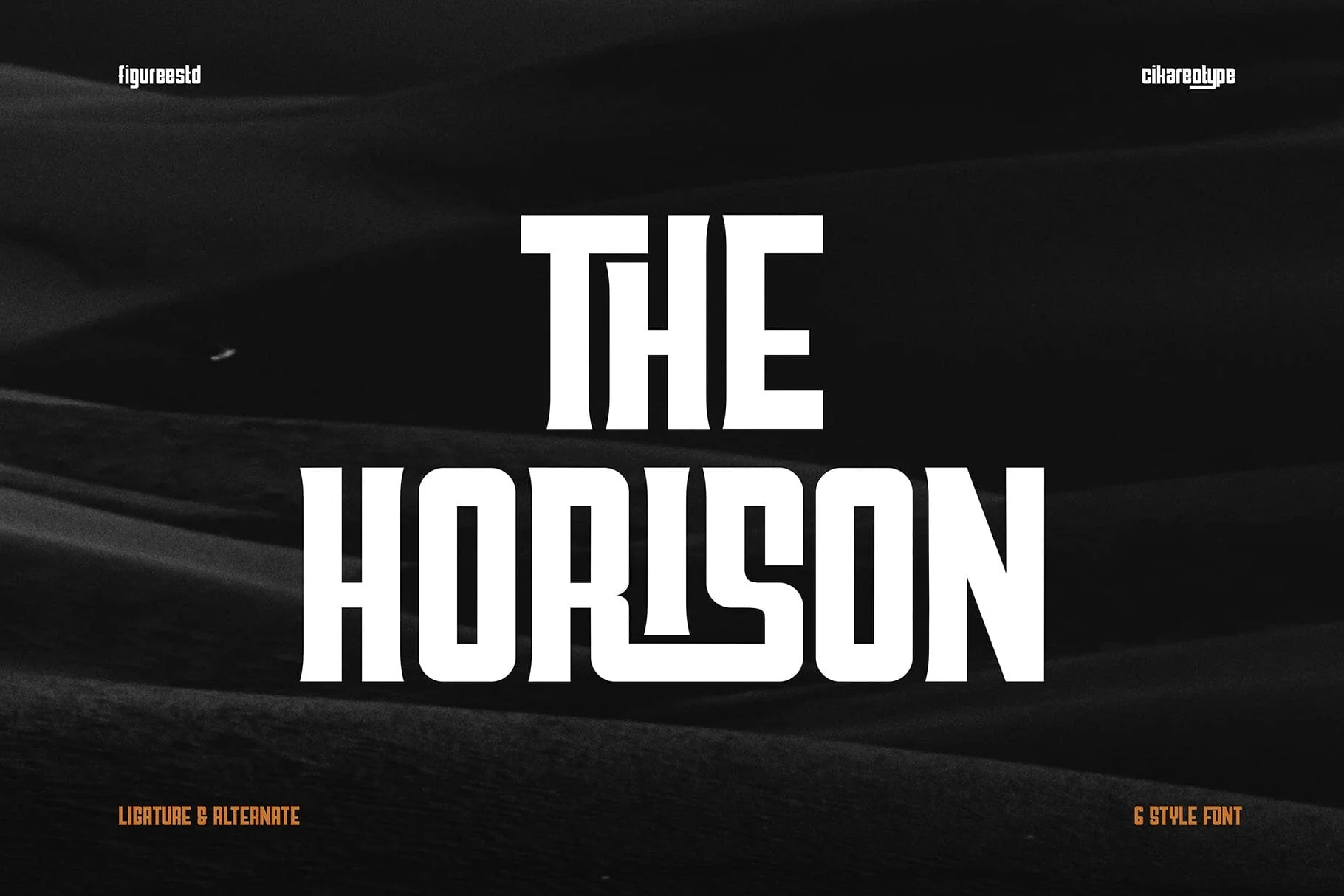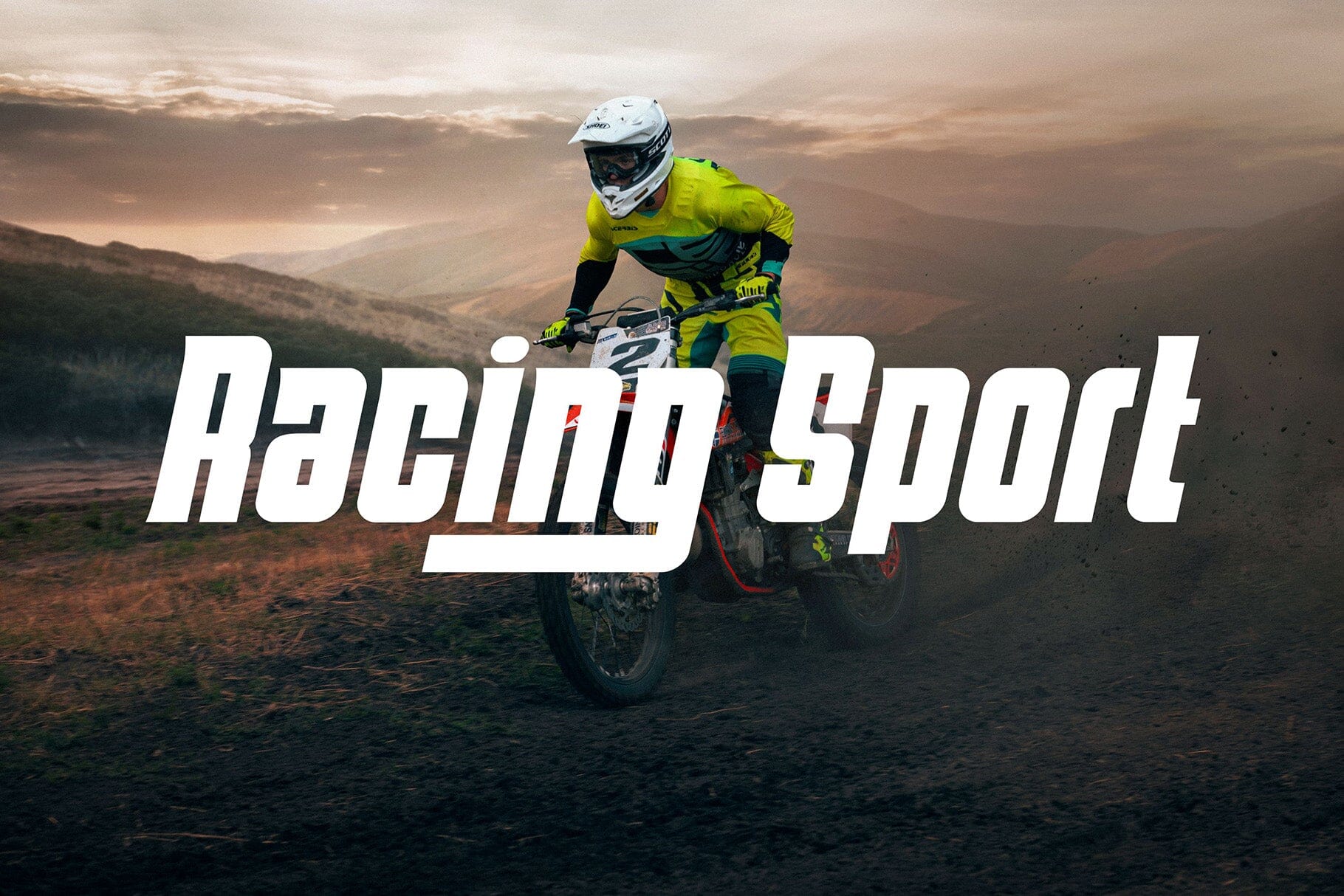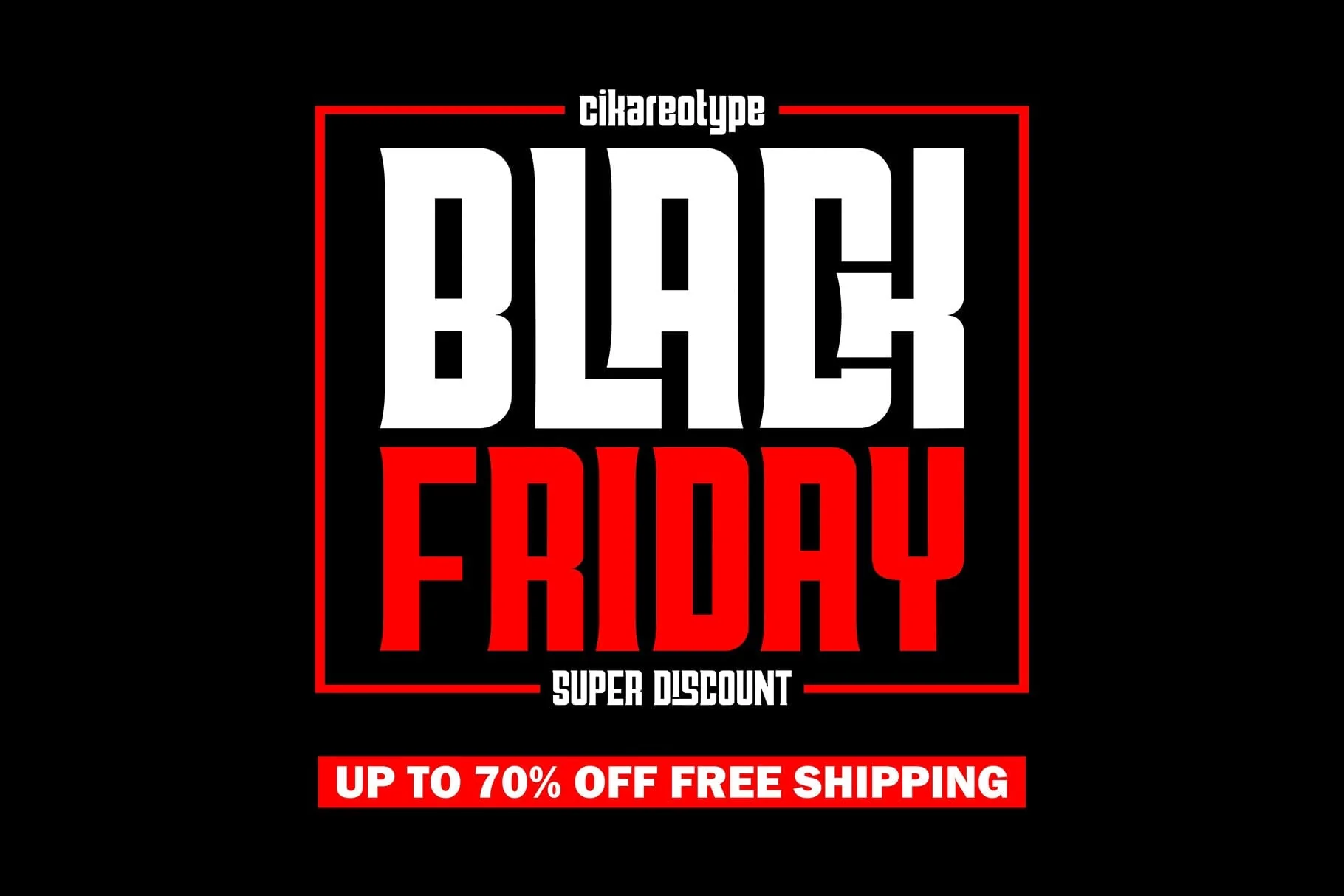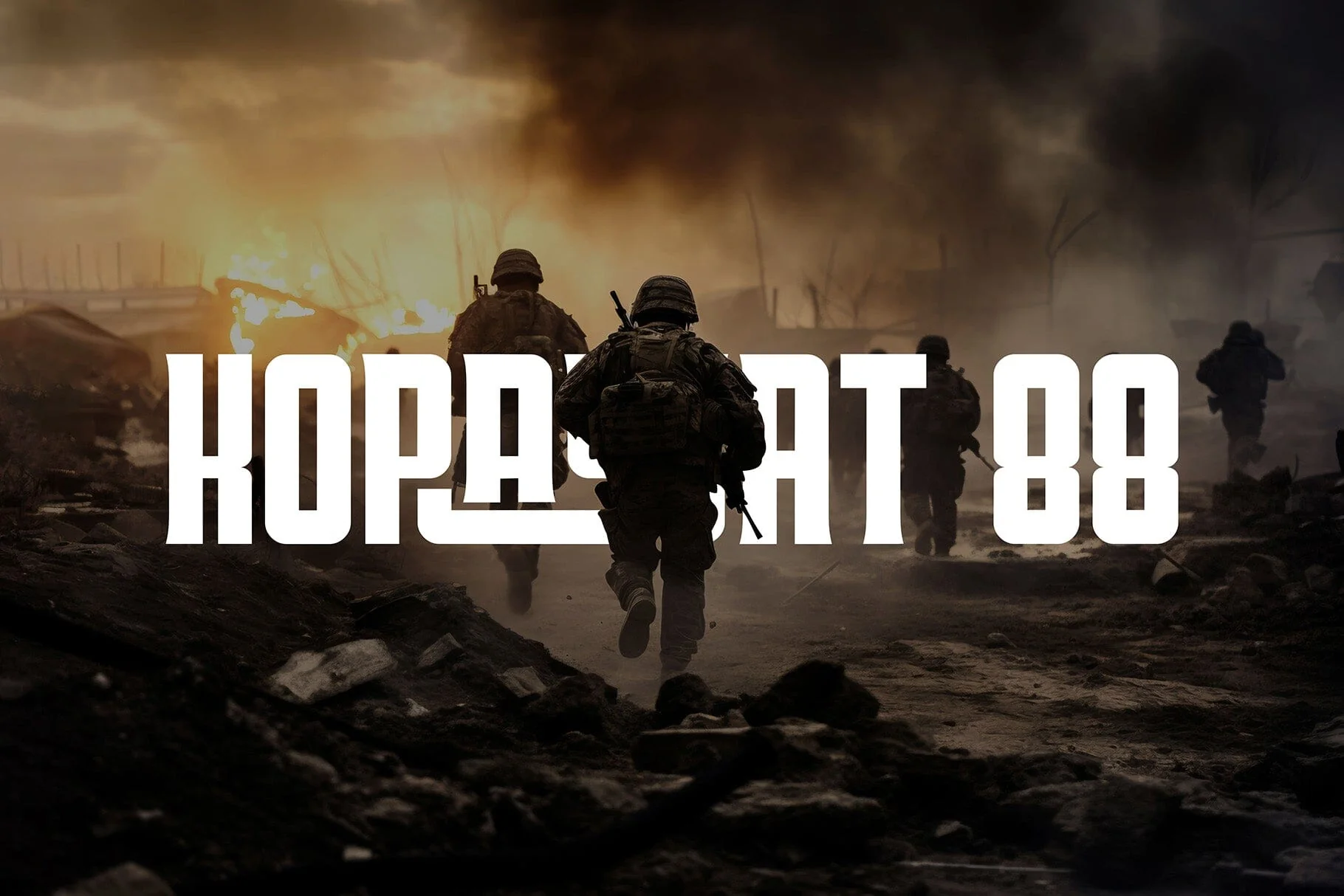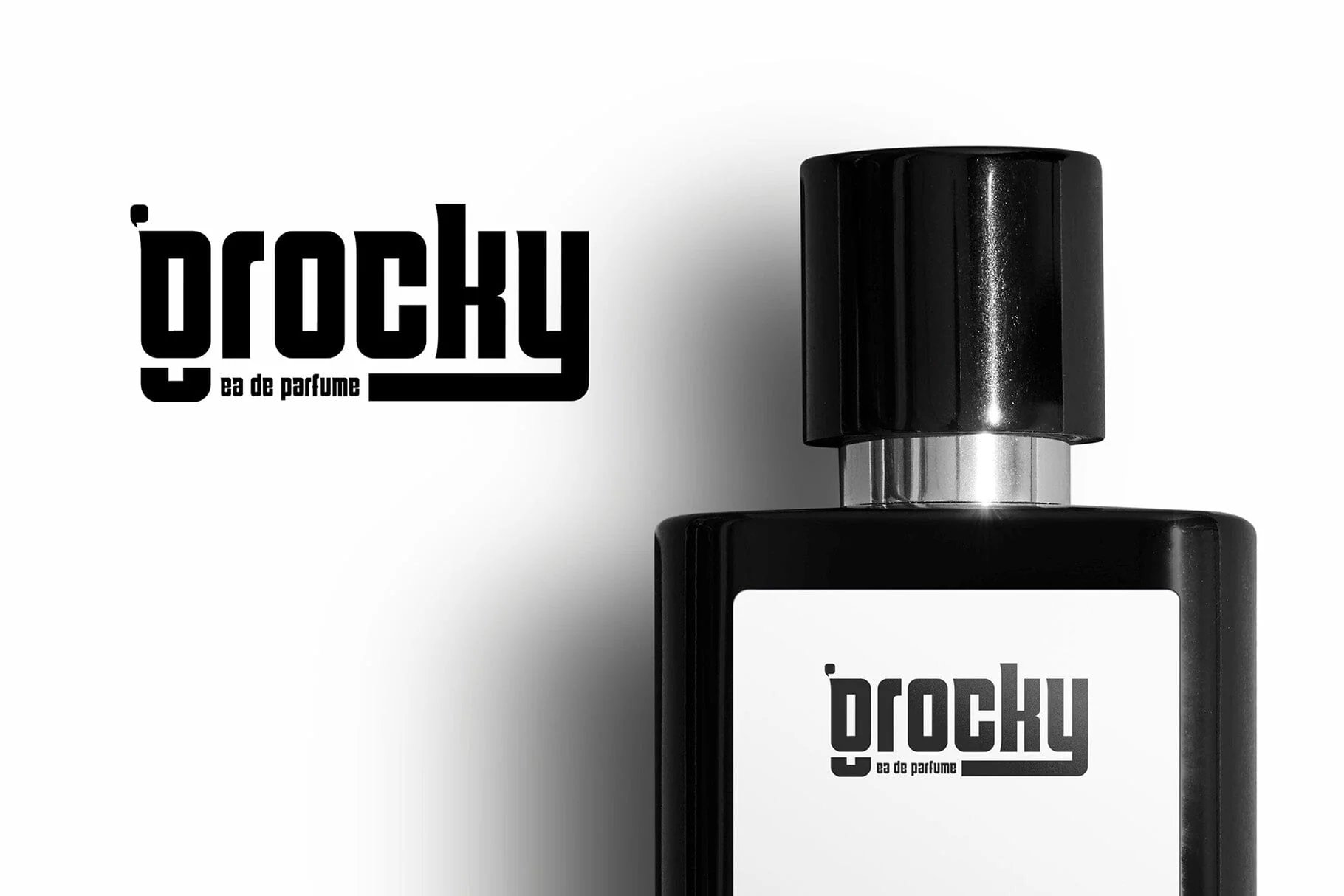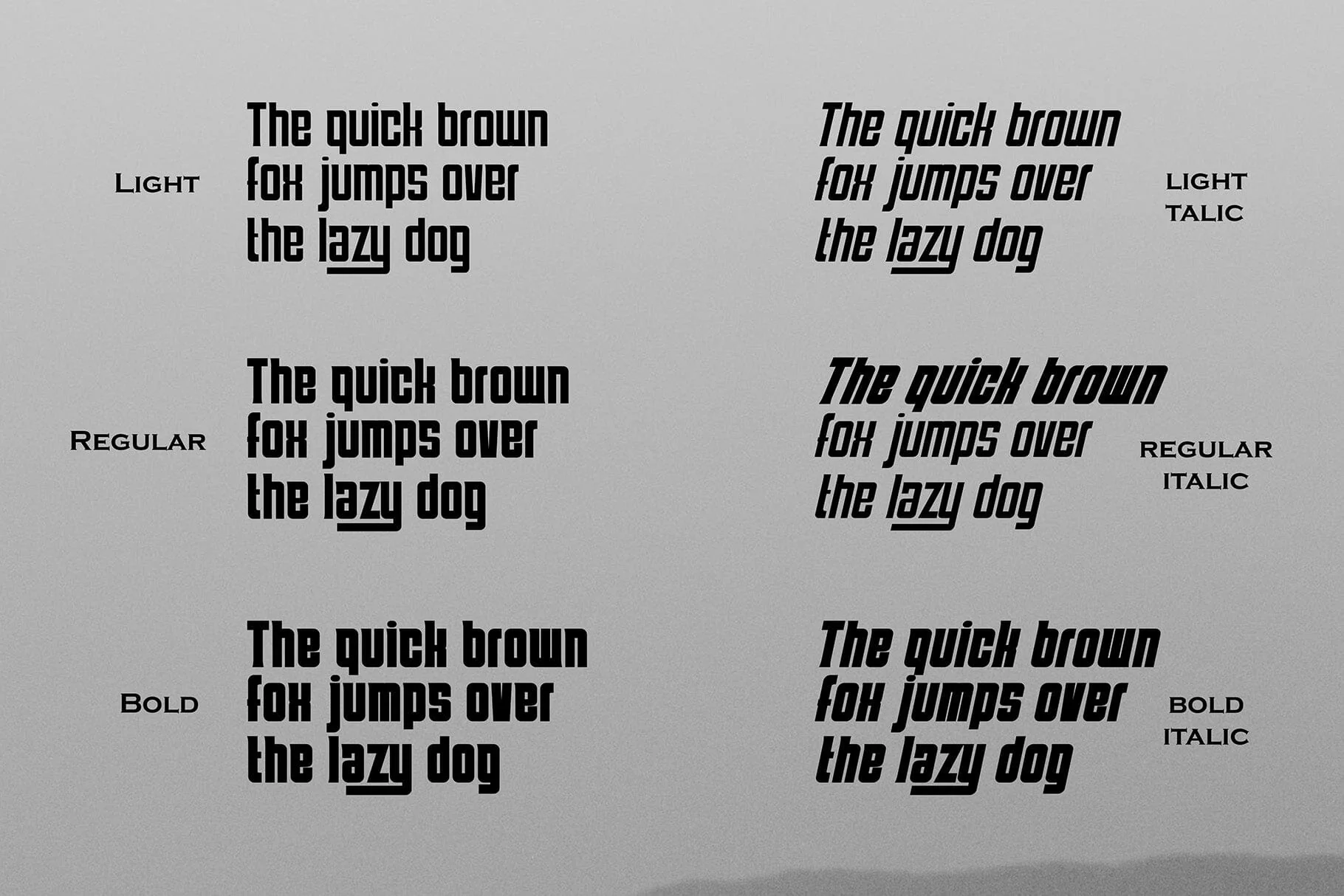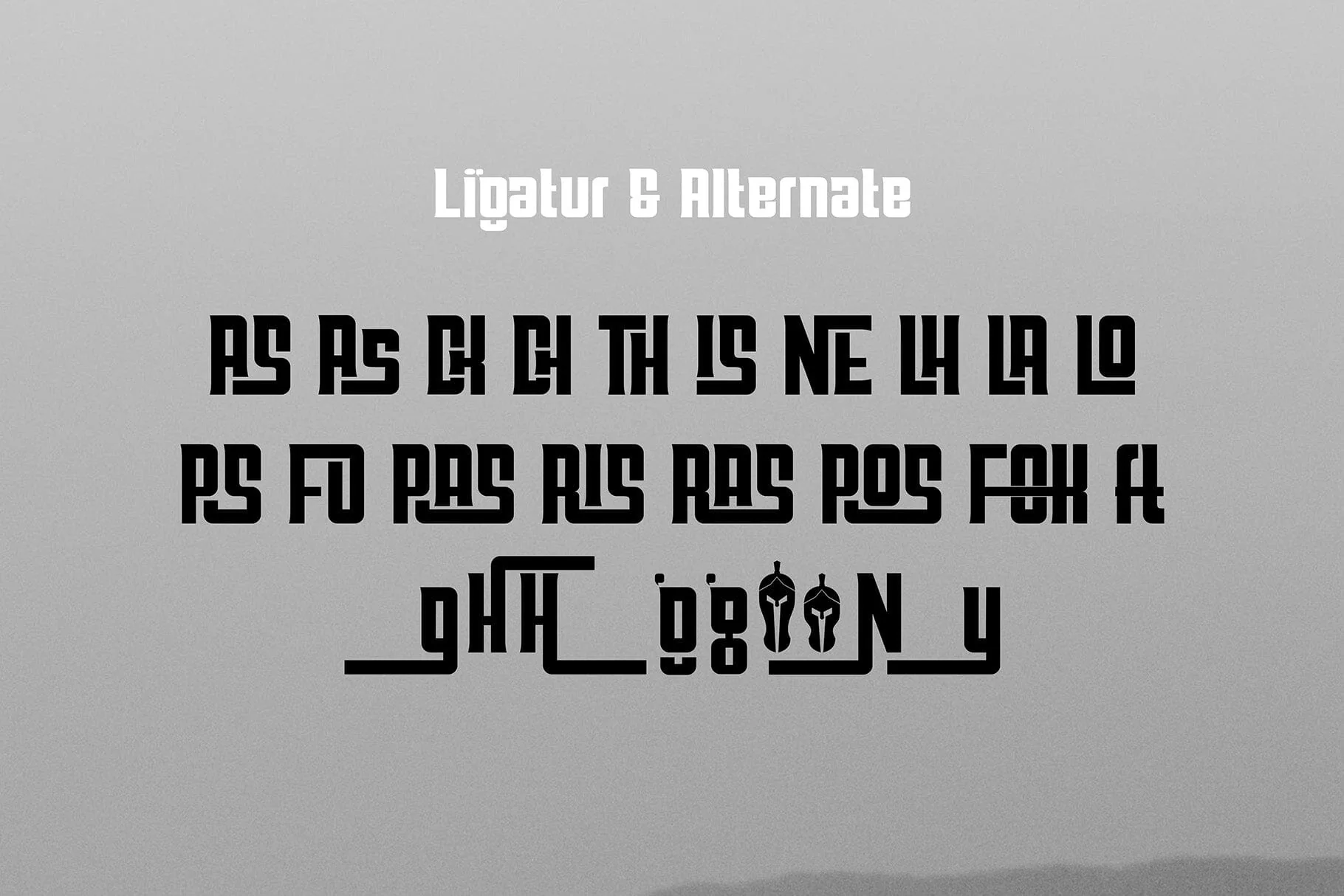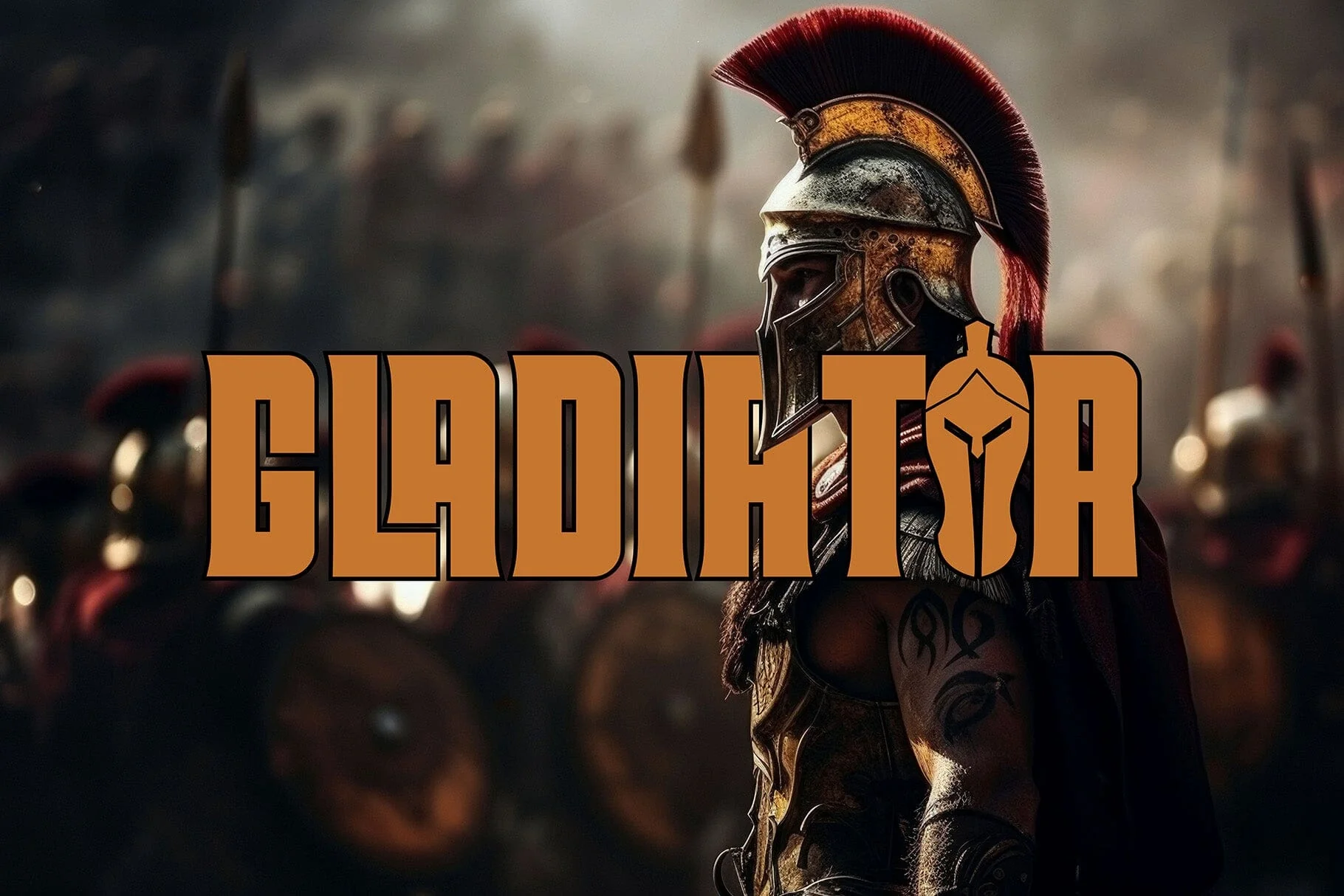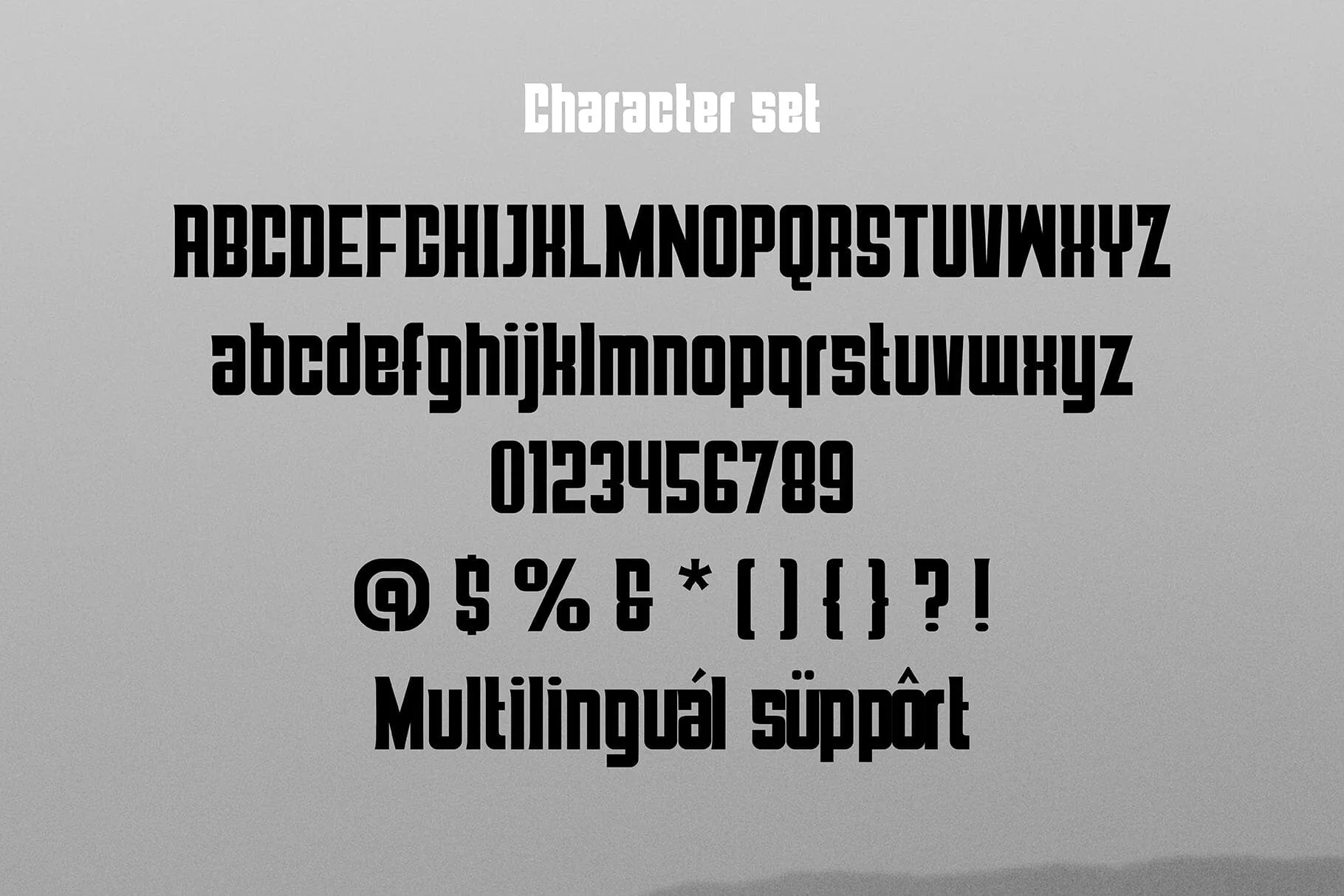
The Horison – Modern Bold Display Logo Font Family
The Horison is a powerful modern display font family featuring six styles, advanced ligatures, and stylistic alternates. Designed with tall condensed proportions and strong geometric structure, this typeface delivers bold cinematic presence and professional clarity. Perfect for movie titles, sports branding, corporate identity, tech startups, editorial headlines, gaming graphics, and logo design. The refined letterforms maintain excellent readability while offering distinctive character shapes that enhance visual rhythm. With multiple styles included, The Horison allows flexible hierarchy and dynamic combinations within one cohesive family, making it ideal for impactful branding and high-visibility design projects.